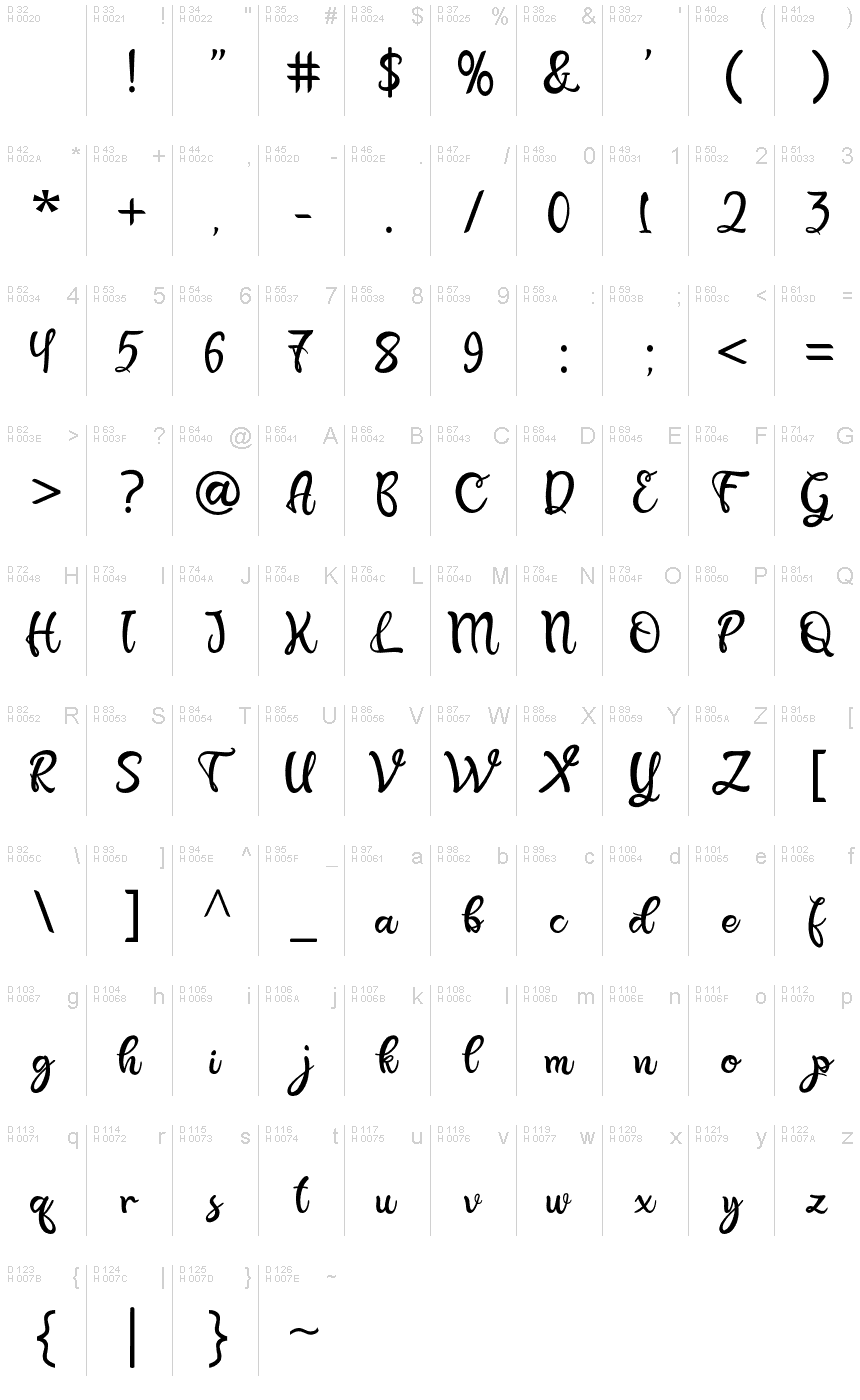
Beauty Angelin-Regular
Beauty Angelin font is a cute brush typeface designed by Burhanul jauhar a.
Burhanul JA
Beauty Angelin
Burhanul jauhar a
This font is made with sincerity to present a beautiful, cute, elegant look in the hope of giving everyone an impression.